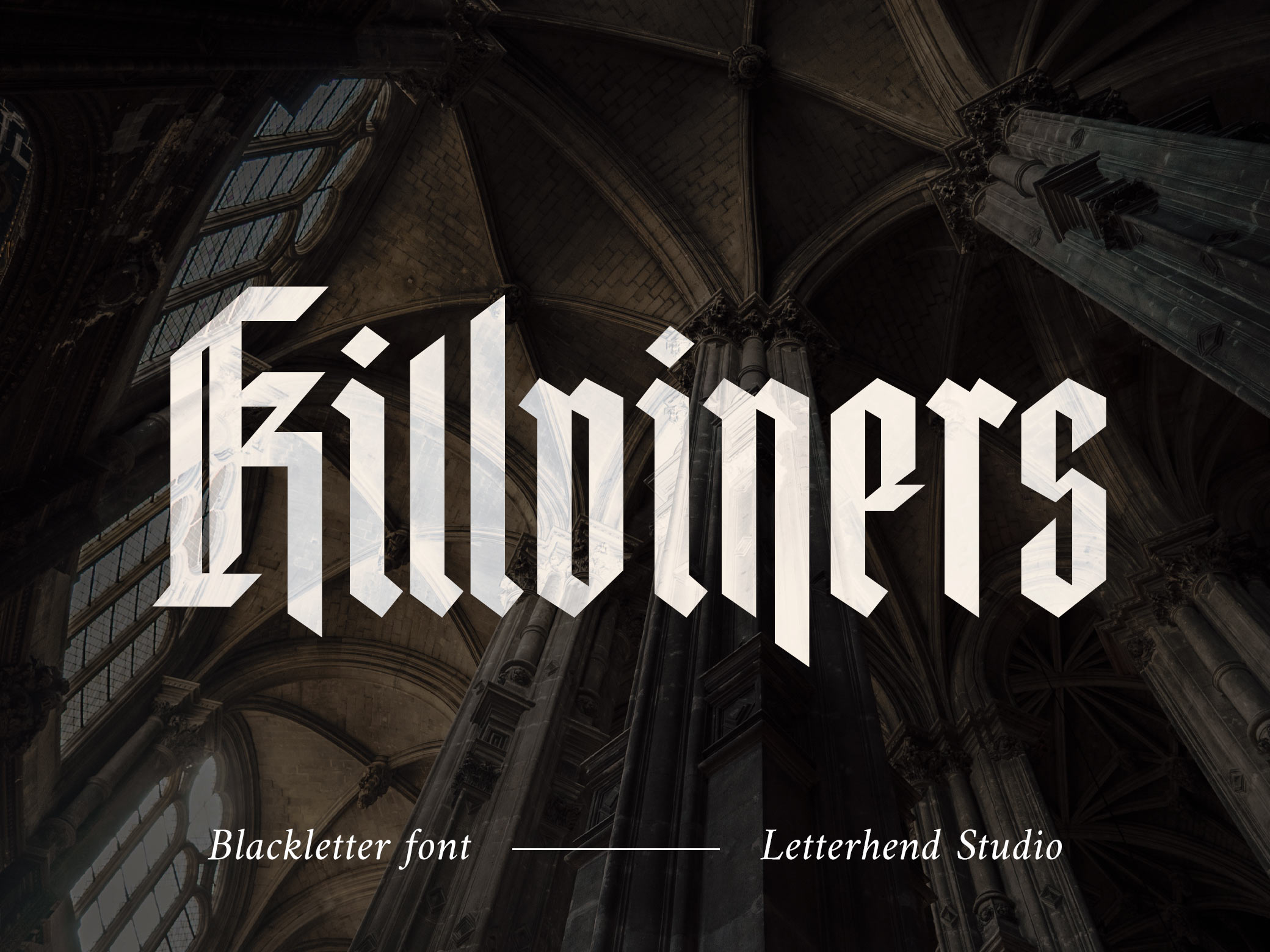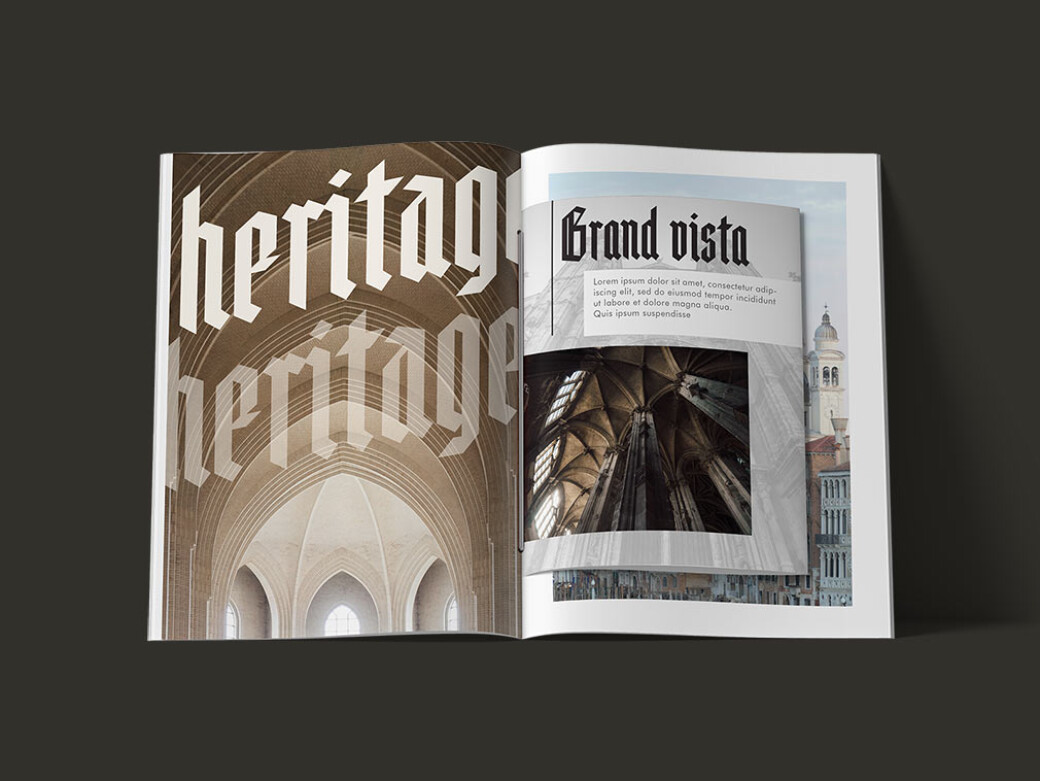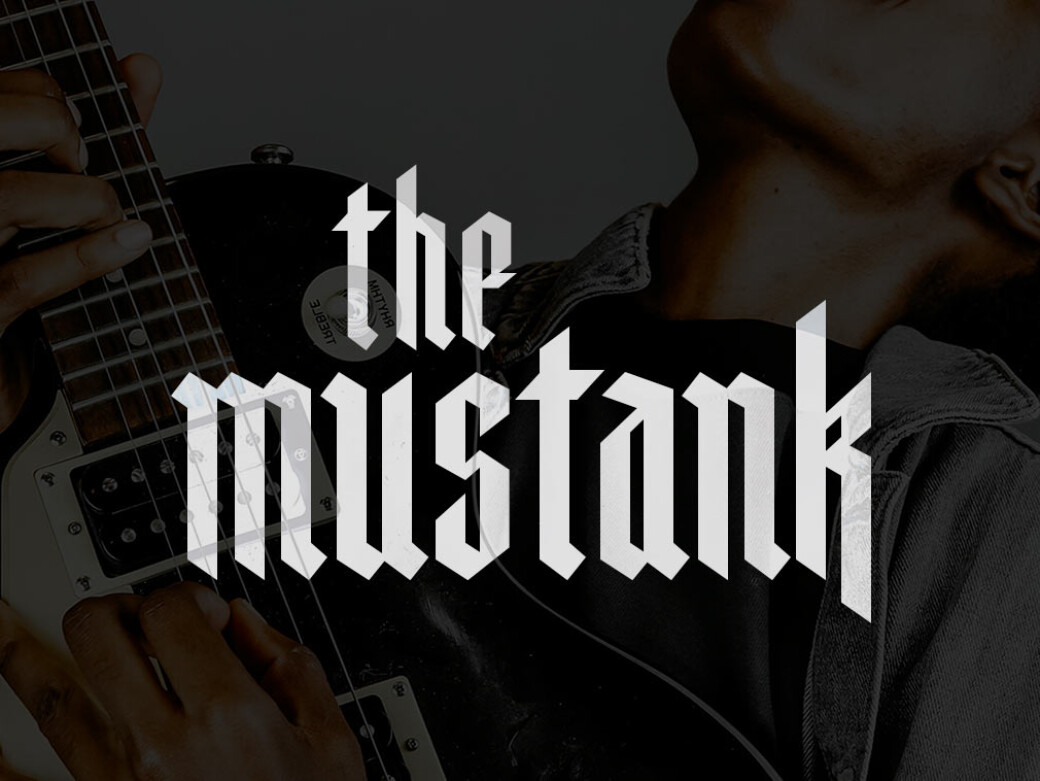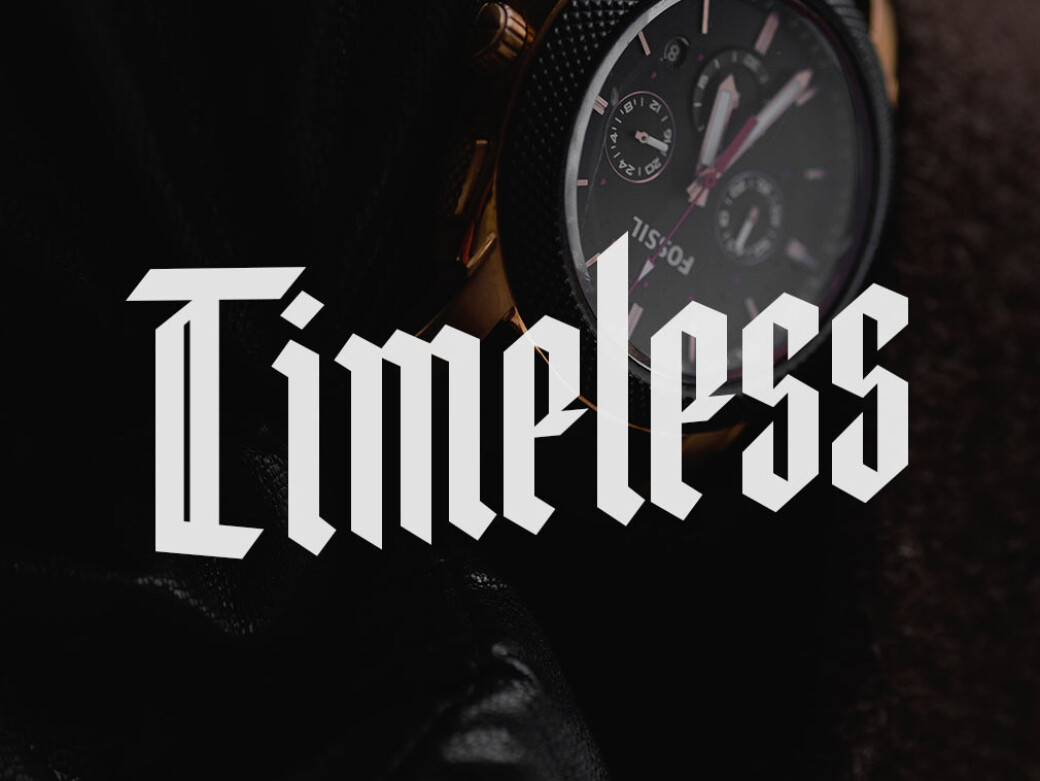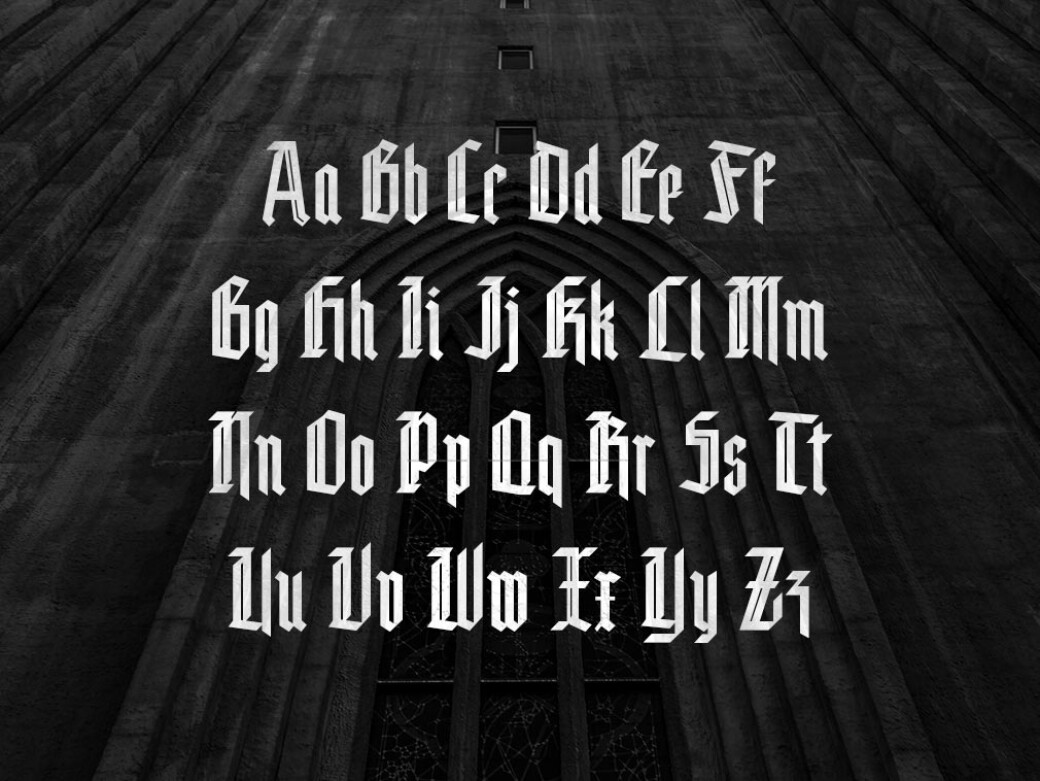
Killviners Blackletter Font
Behind this gothic brutal form, a great creative potential is hidden. Dare to explore the all-powerful blackletter font, that will fit in almost any project despite its rigorous characters and a bit conservative look.Craft beer packaging, tote bag print, custom stickers, the title for a new rock band EP you've recorded with your friends — there are so many designs you can use this typeface for! Trust your gut when picking the font, of course, but also be sure this one won't let you down. Consisting of all the necessities (numerals, punctuation, multilingual support, uppercase and lowercase, stylistic alternates) the typeface will be the magnet for attention in your upcoming concepts!